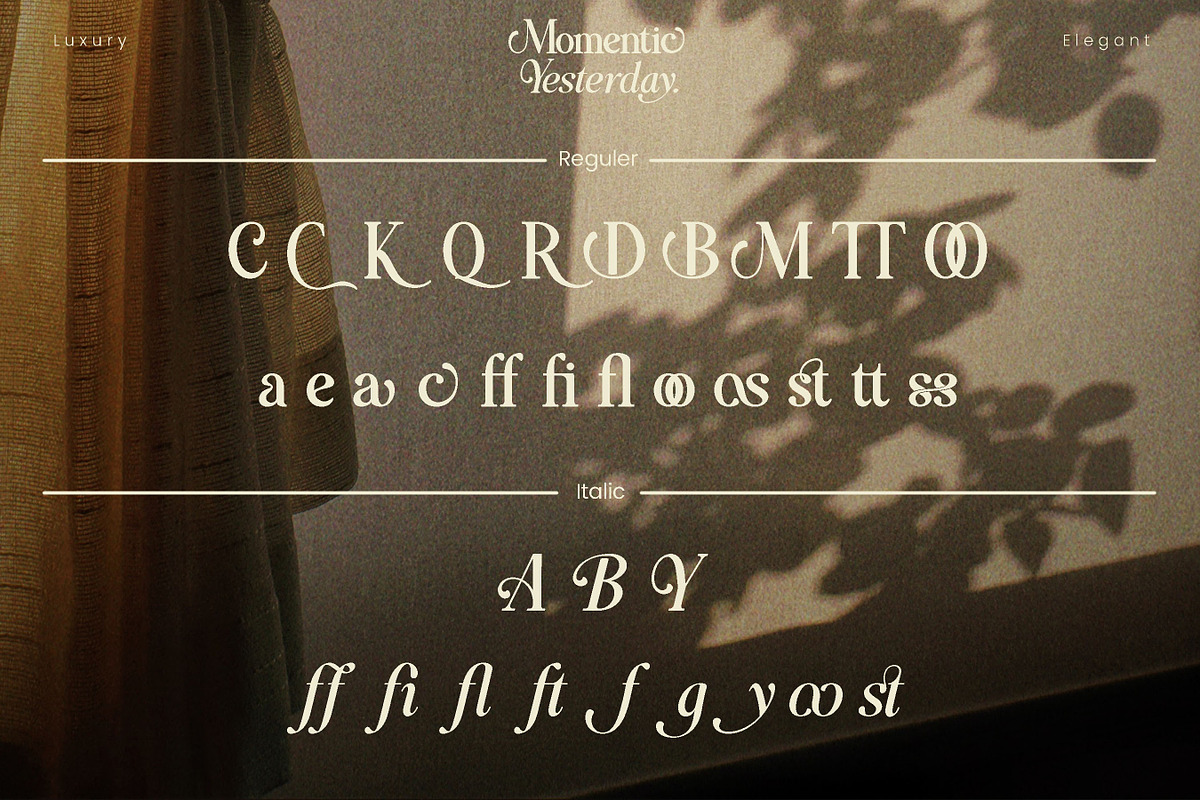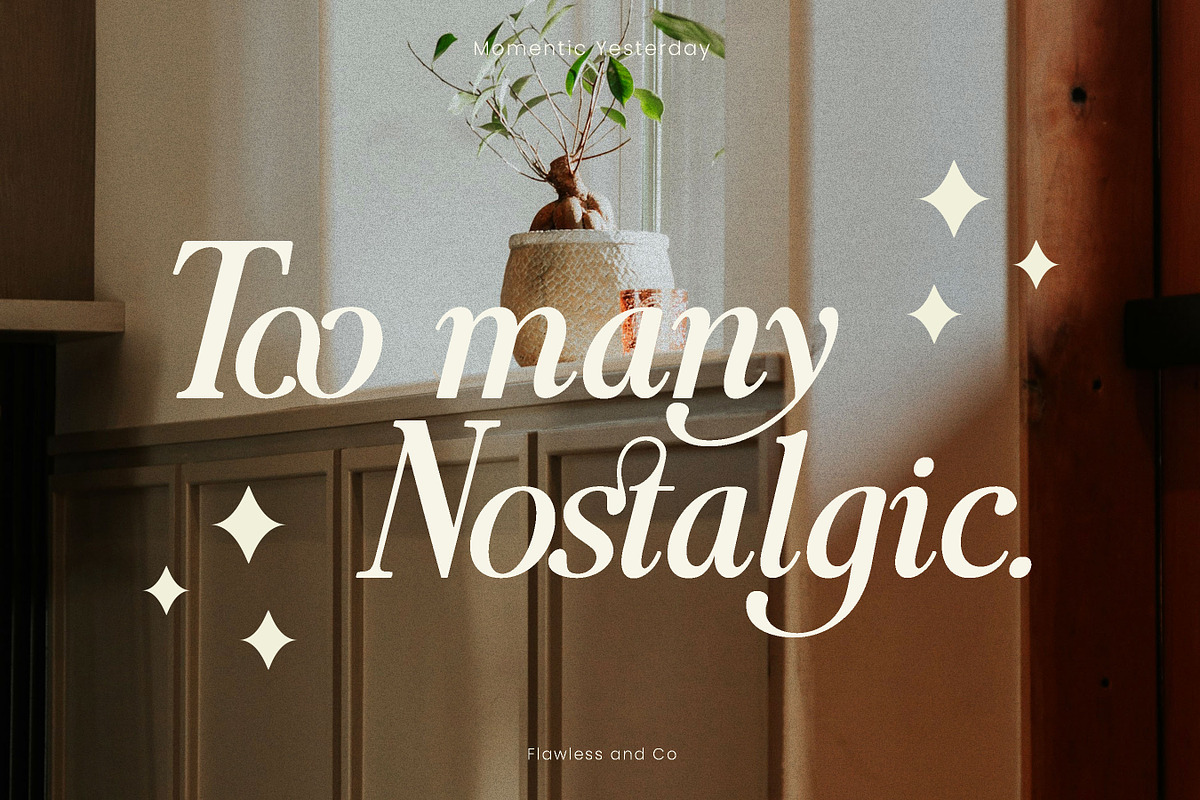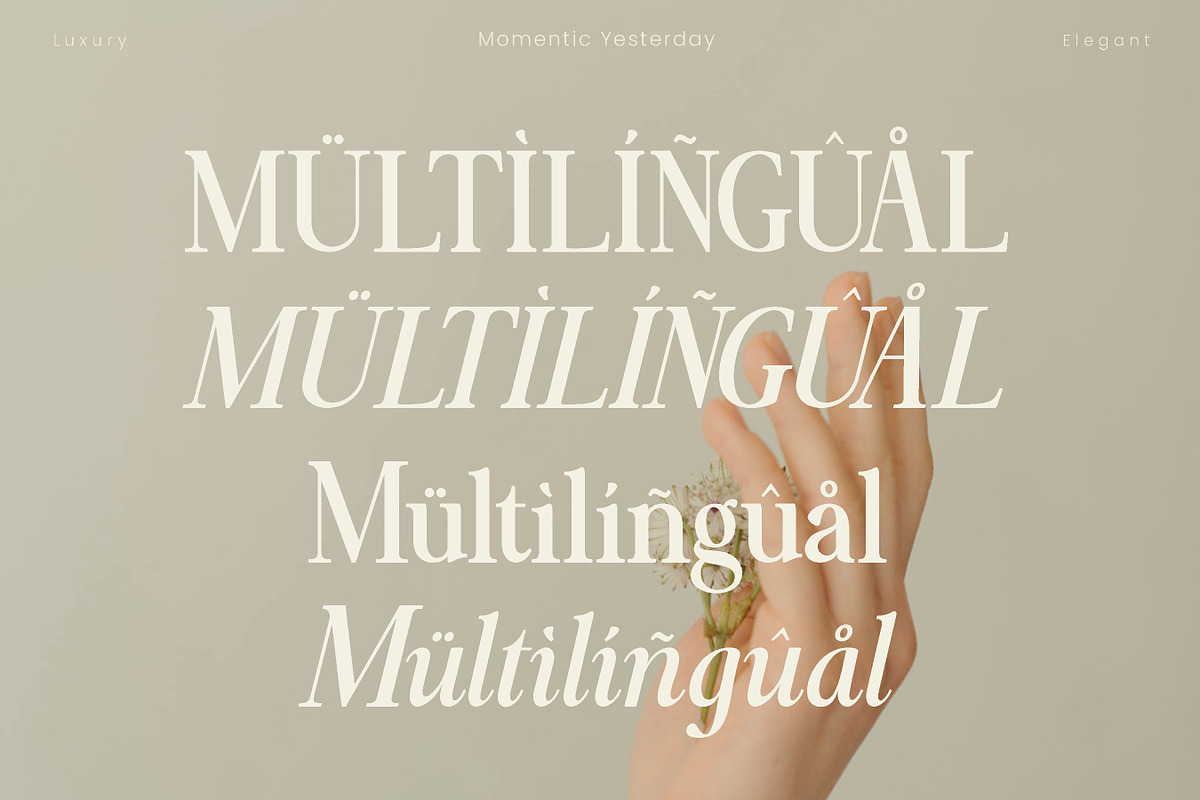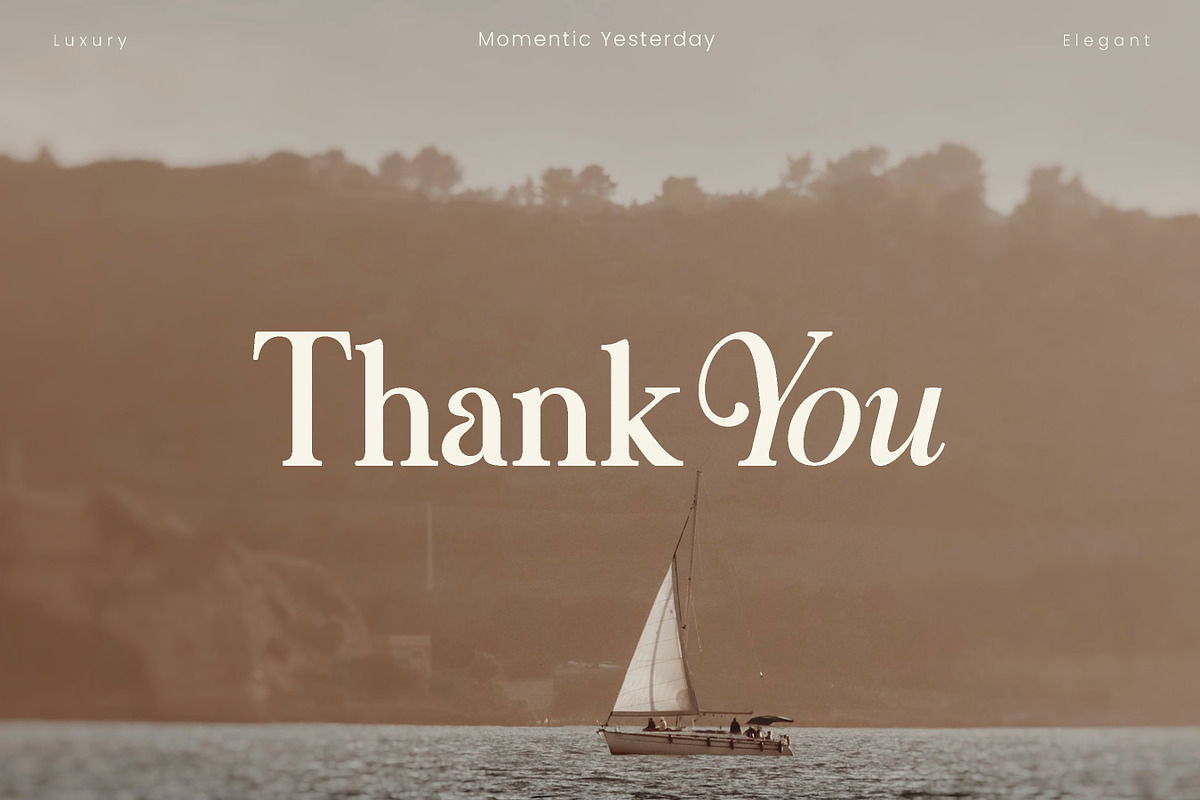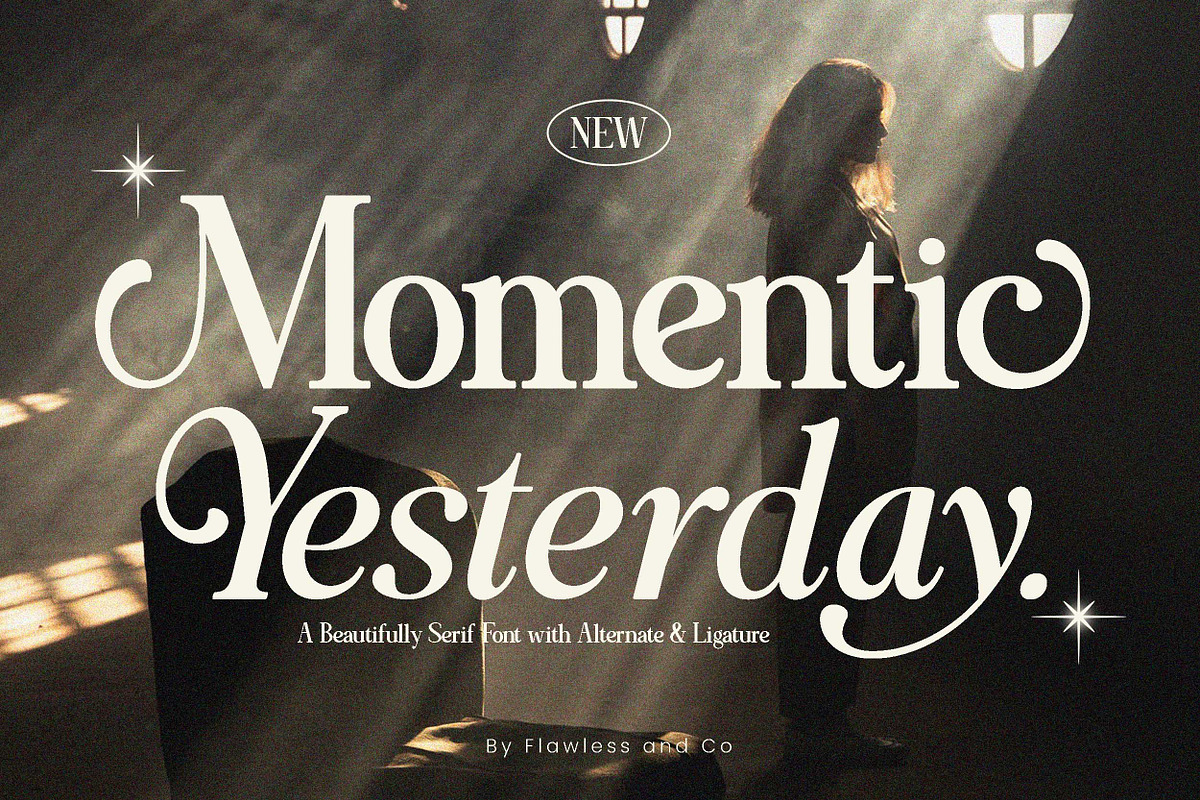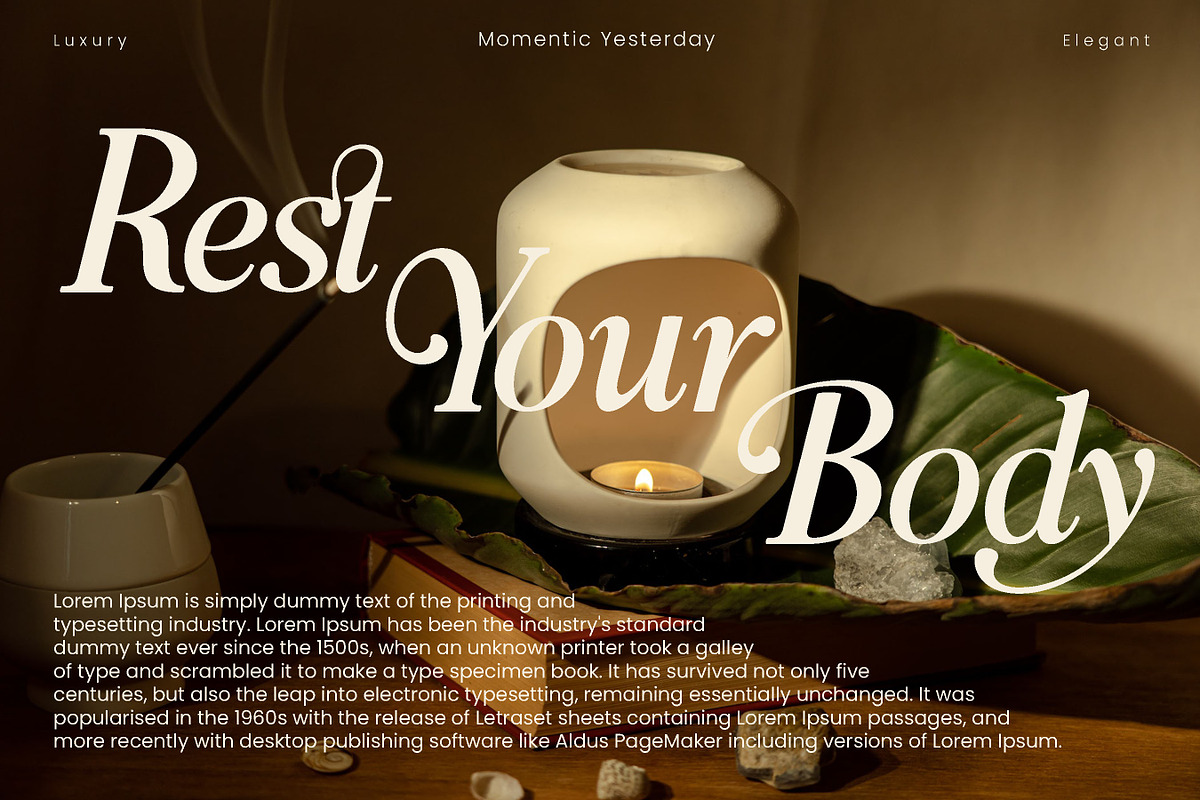
Momentic Yesterday
introducing our new Momentic Yesterday Font Duo, Modern Font with Elegant Style is perfect for branding, logos, invitation, master heads, and more.
Multilingual Uppercase alphabet A-Z Lowercase alphabet a-z Alternate Character Numbers 0-9 Some punctuation